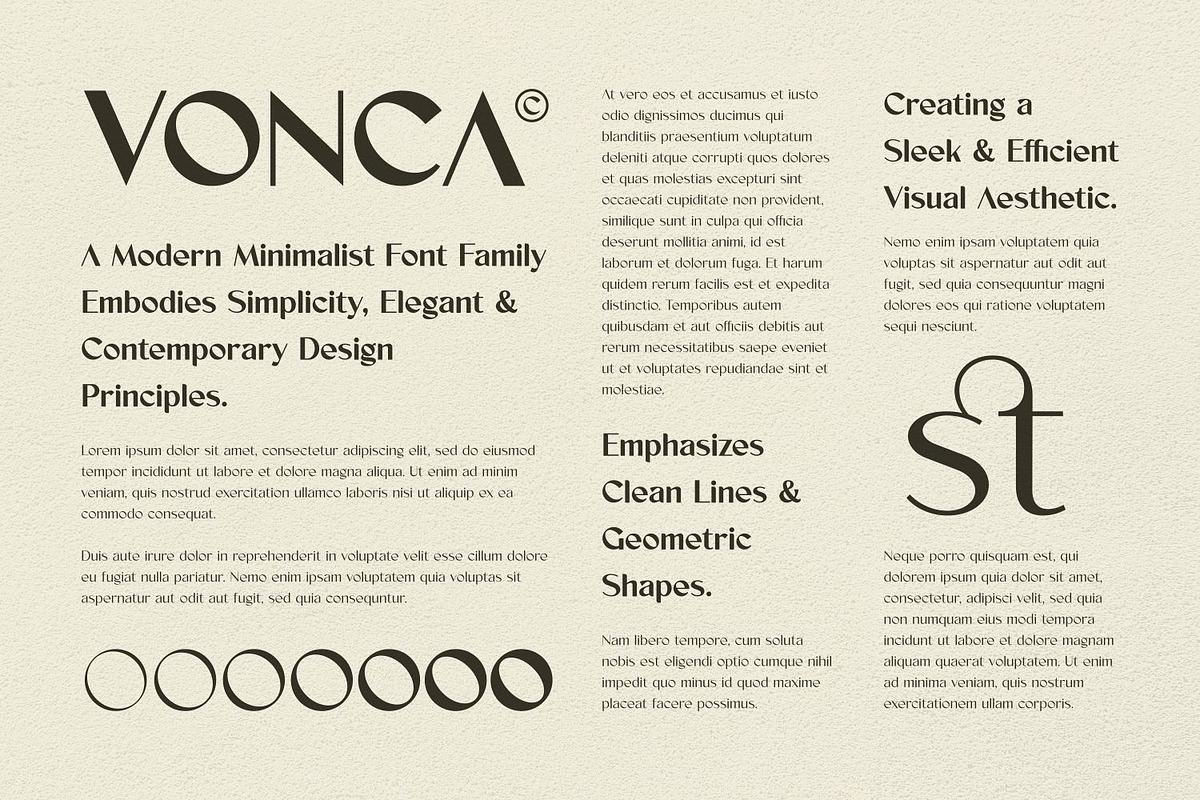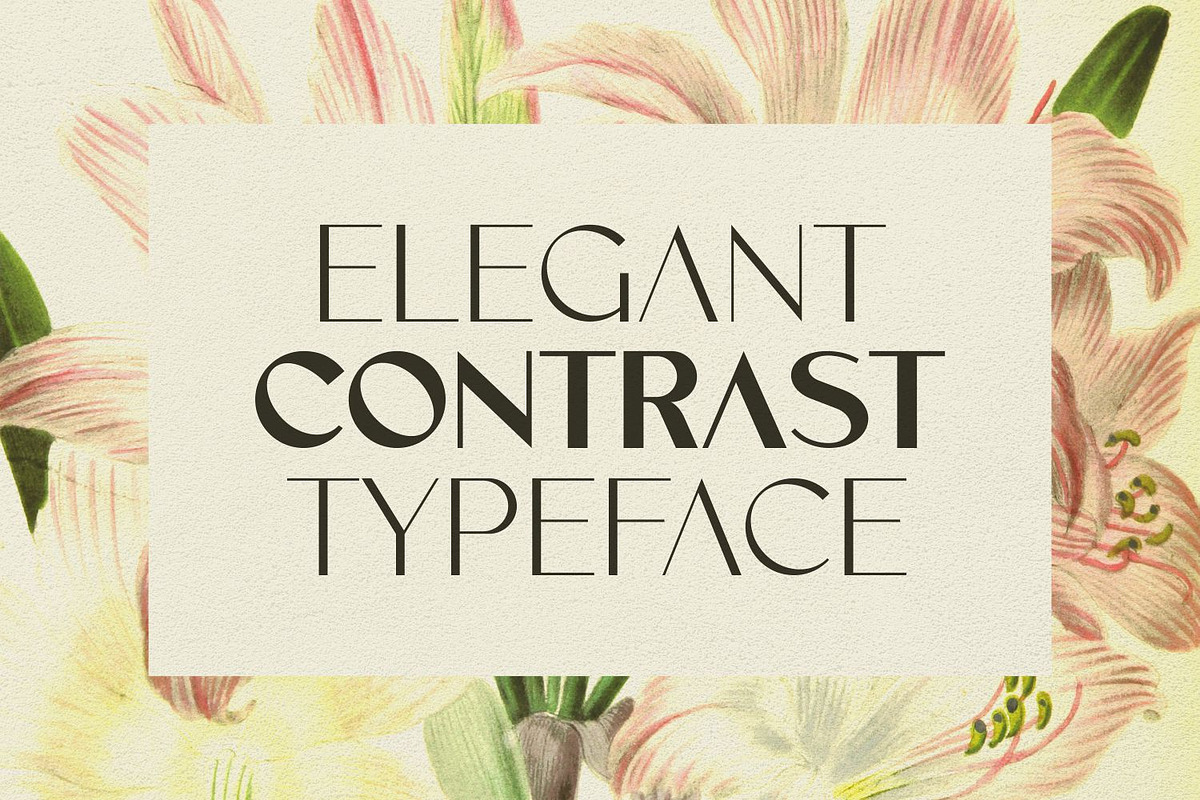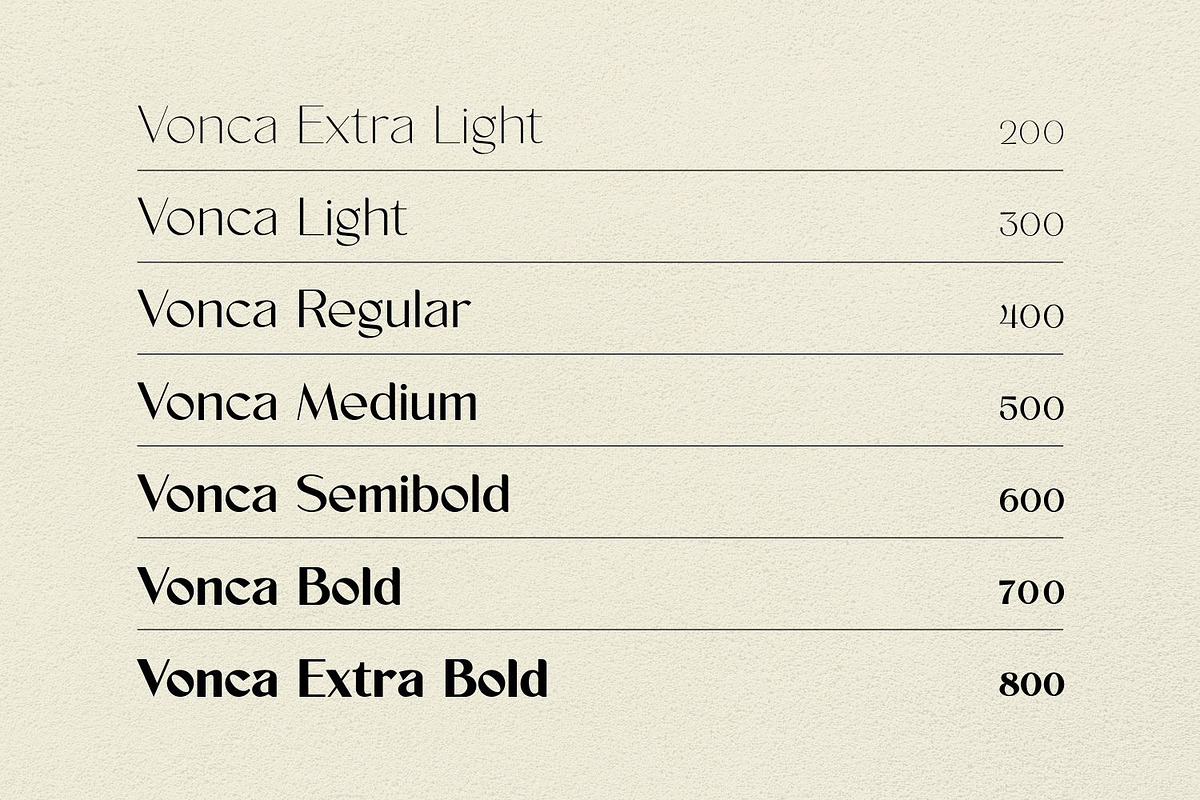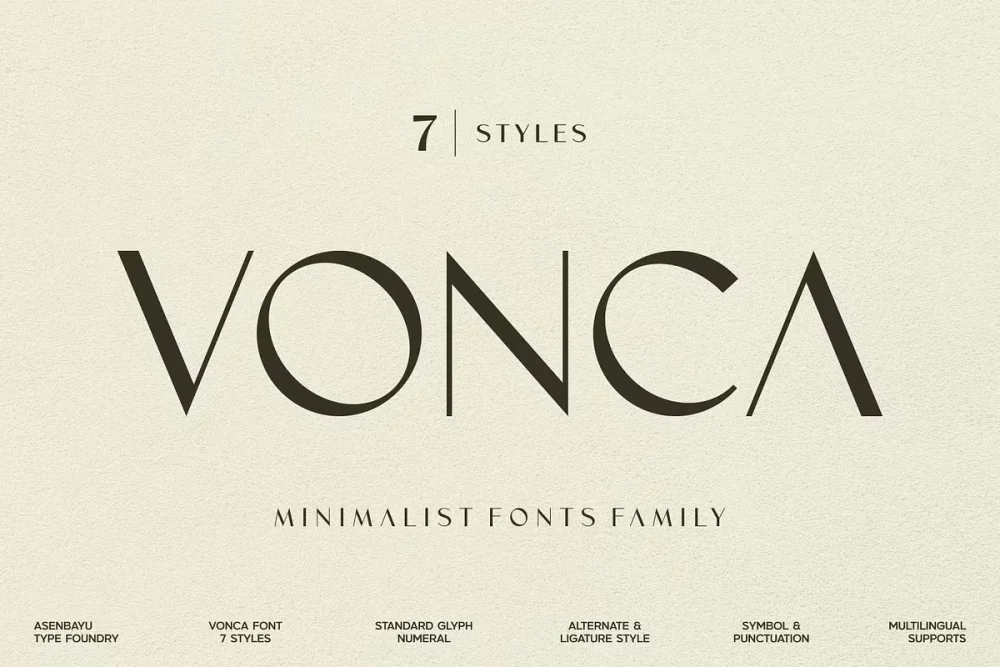
Vonca Font
Vonca is a modern minimalist font family that embodies simplicity, elegance, and contemporary design principles. It emphasizes clean lines, geometric shapes, creating a sleek and efficient visual aesthetic. You can use this font in both modern and vintage designs. This font is suitable for trendy packaging label designs, unique desired logos and branding, poster designs, fashion and many more.
Vonca font features:
• 7 styles
• Standard glyph
• Stylistic alternates & ligatures
• Symbol & punctuation
• Multiple languages supported
Vonca Sans Serif Font Preview